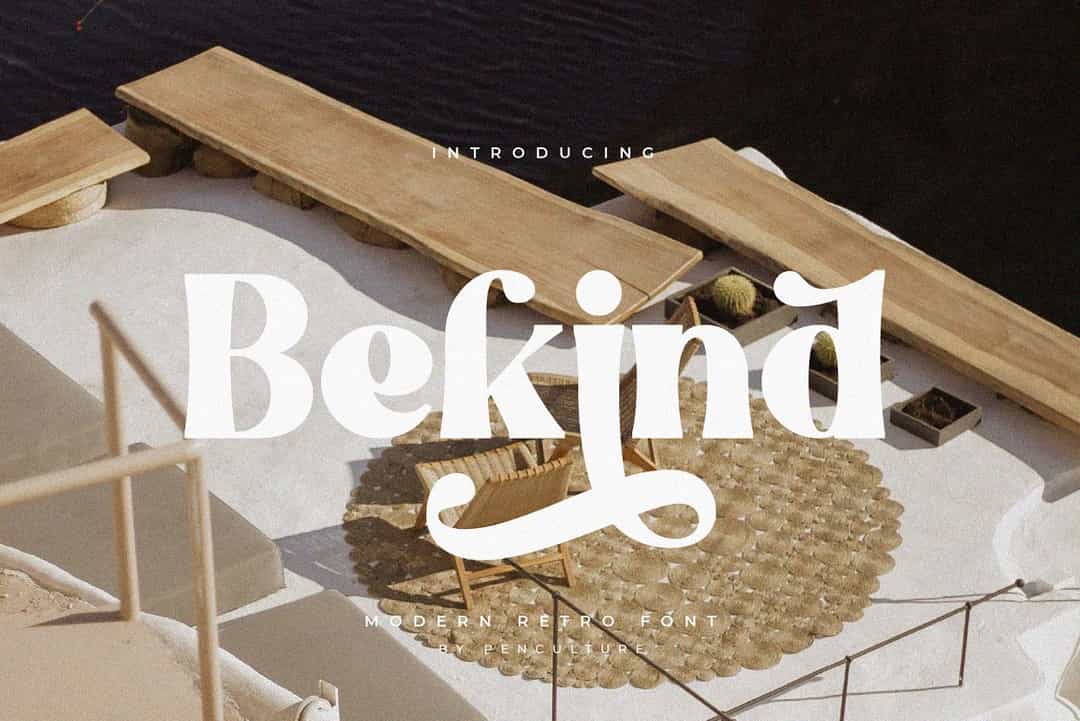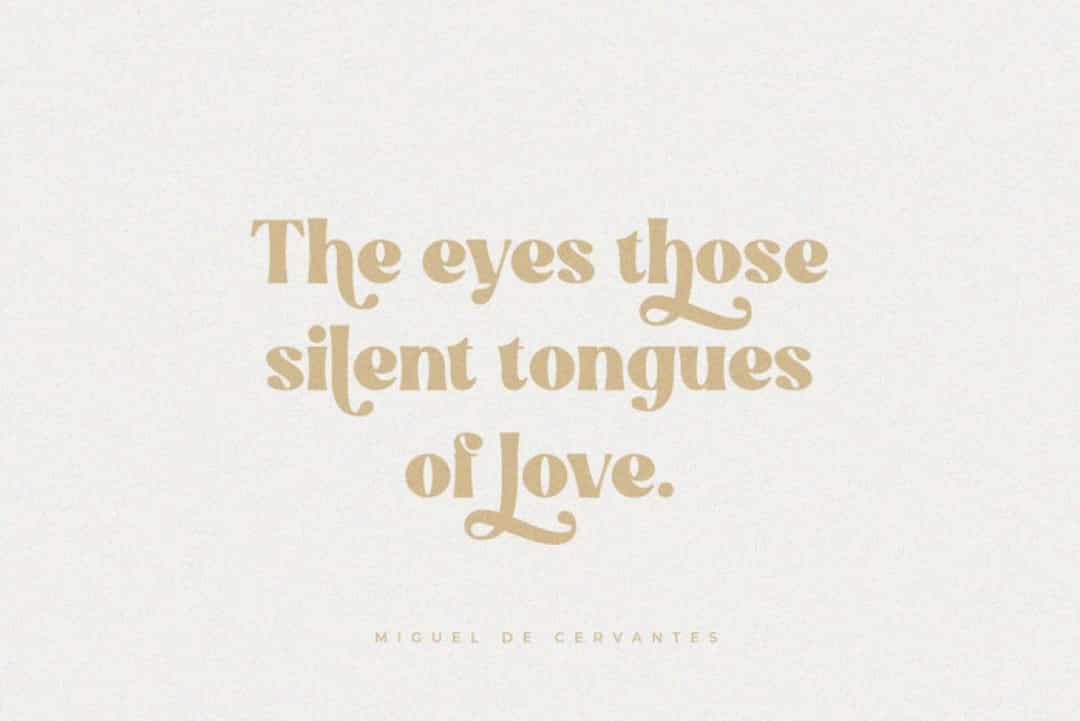
Bekind is an eye-catching retro serif font perfect for logo design, branding and embroidery projects using Cricut, Cricut embroidery machines or any other means. This font boasts uppercase letters, lowercase letters, numbers and punctuation plus an alternative version – offering ample choice.